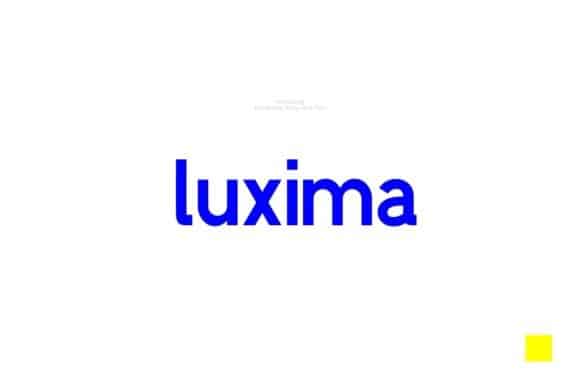
Luxima Sans Serif Font
Luxima Font is a modern condensed font that has simple, geometric characters with soften round edges and a modern look.
Luxima Font it’s great to be used in a large variety of applications, from digital and print designs to website headers, posters, flyers and much more, this font is the best choice in creating attention-grabbing designs.